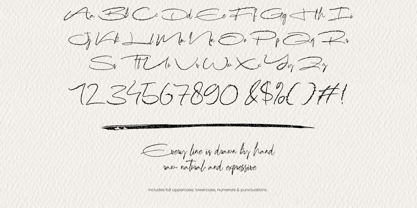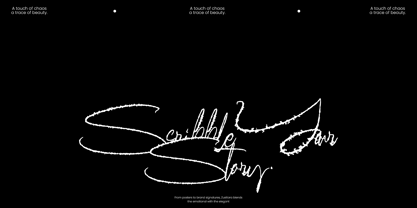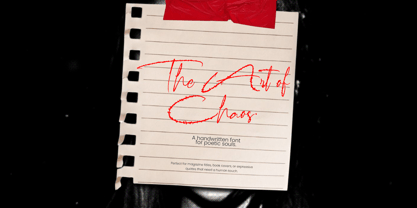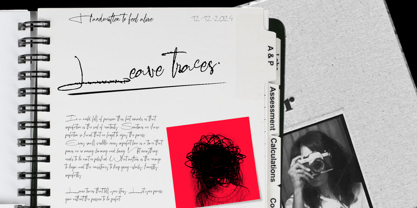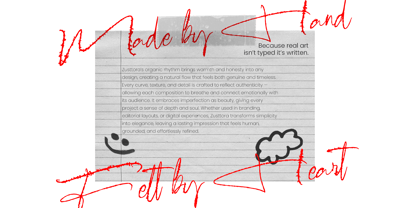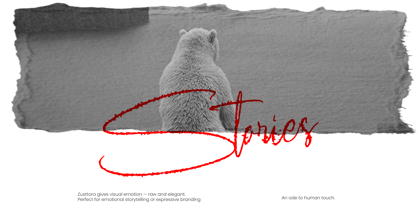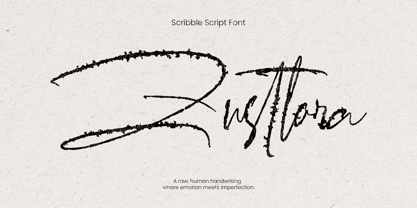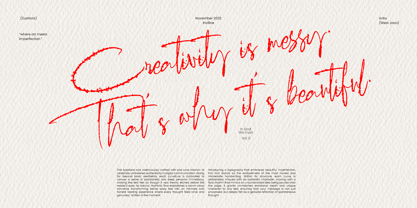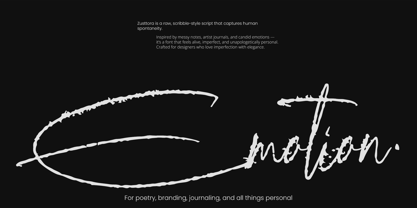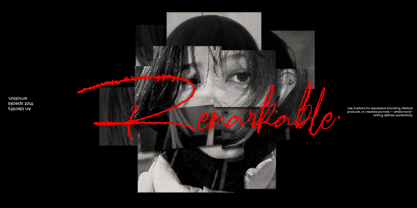
Zusttora
by Inviline
The Zusttora Font Family was designed by Virgiawan Listanto and published by Inviline. Zusttora contains 1 styles. More about this family
Zusttora is a raw and expressive scribble-style script font inspired by messy journals, emotional notes, and artistic imperfection — a perfect choice for poetic branding, storytelling visuals, personal logos, zines, posters, or any creative work that craves a touch of human chaos. What you get: complete set of uppercase and lowercase letters, numerals, basic punctuations, and organic strokes that feel truly hand-drawn.
Designers: Virgiawan Listanto
Foundry: Inviline